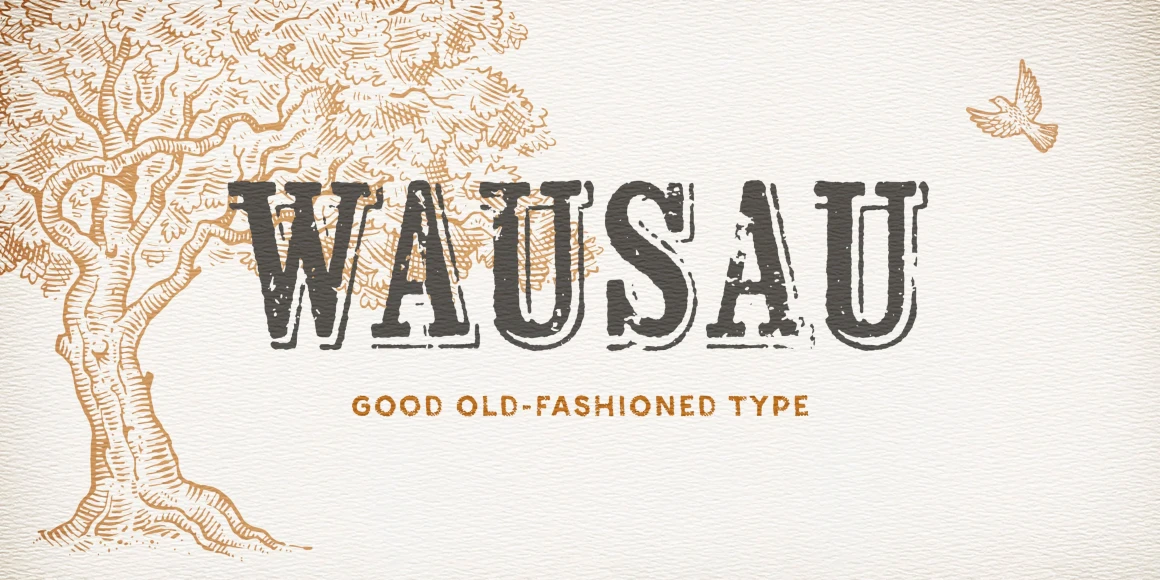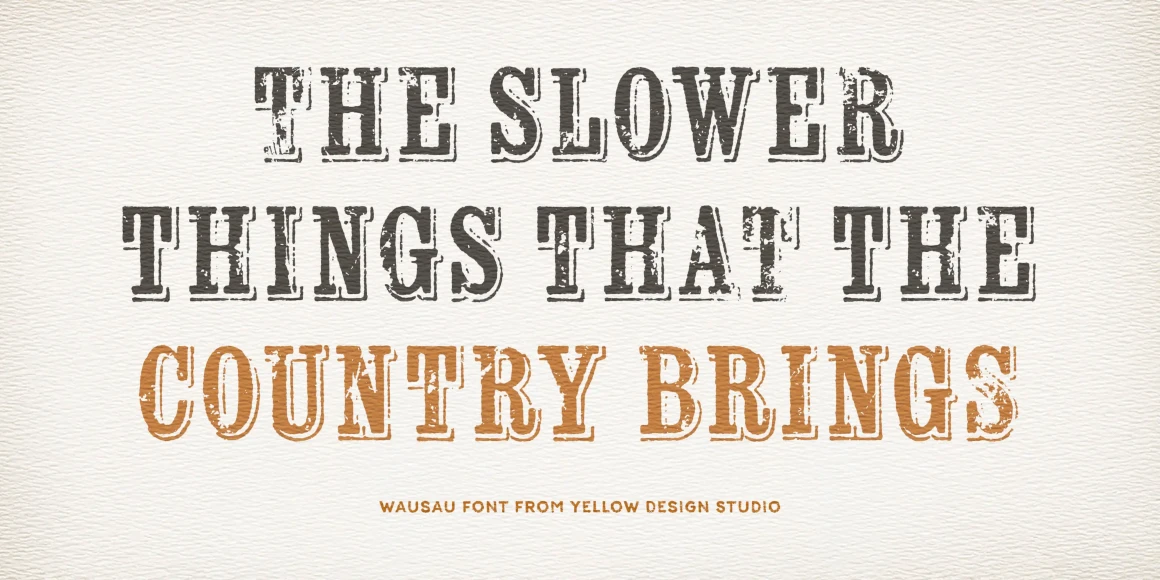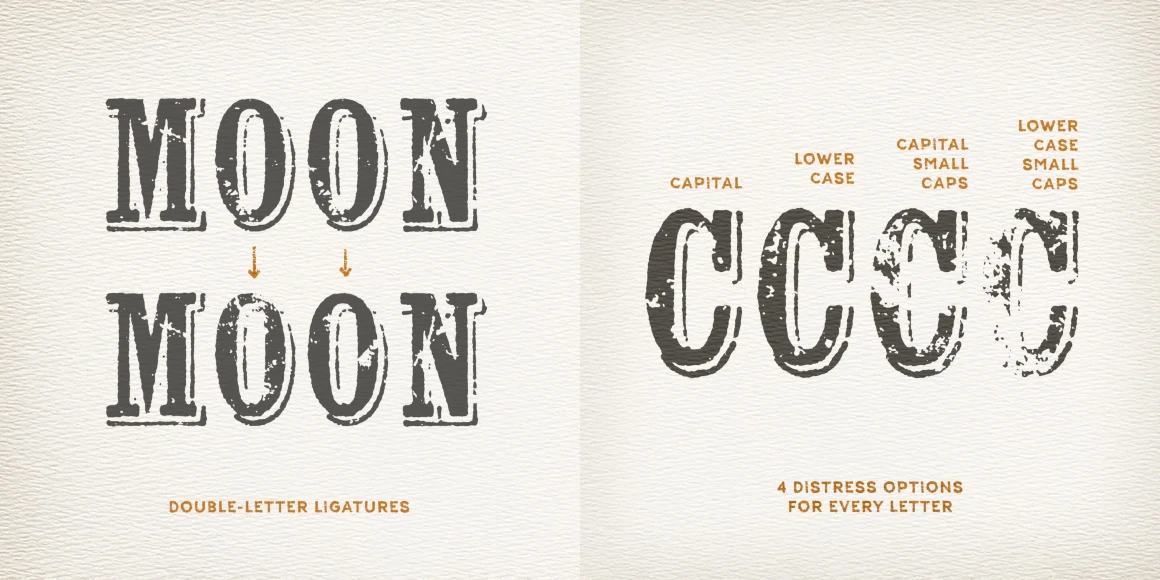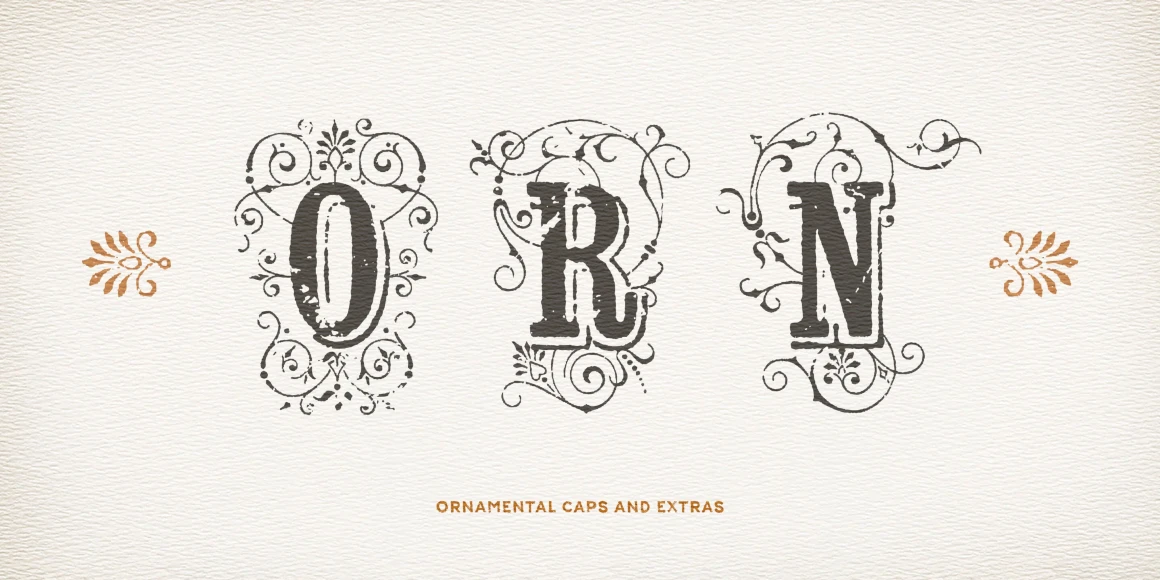
Wausau
From Yellow Design Studio
Wausau is a distressed shadowed slab serif with a massive selection of alternate characters and ornaments. Features include a complete set of ornamental caps and double-letter ligatures to eliminate duplicate distressing in adjacent characters.
Designed by Ryan Martinson